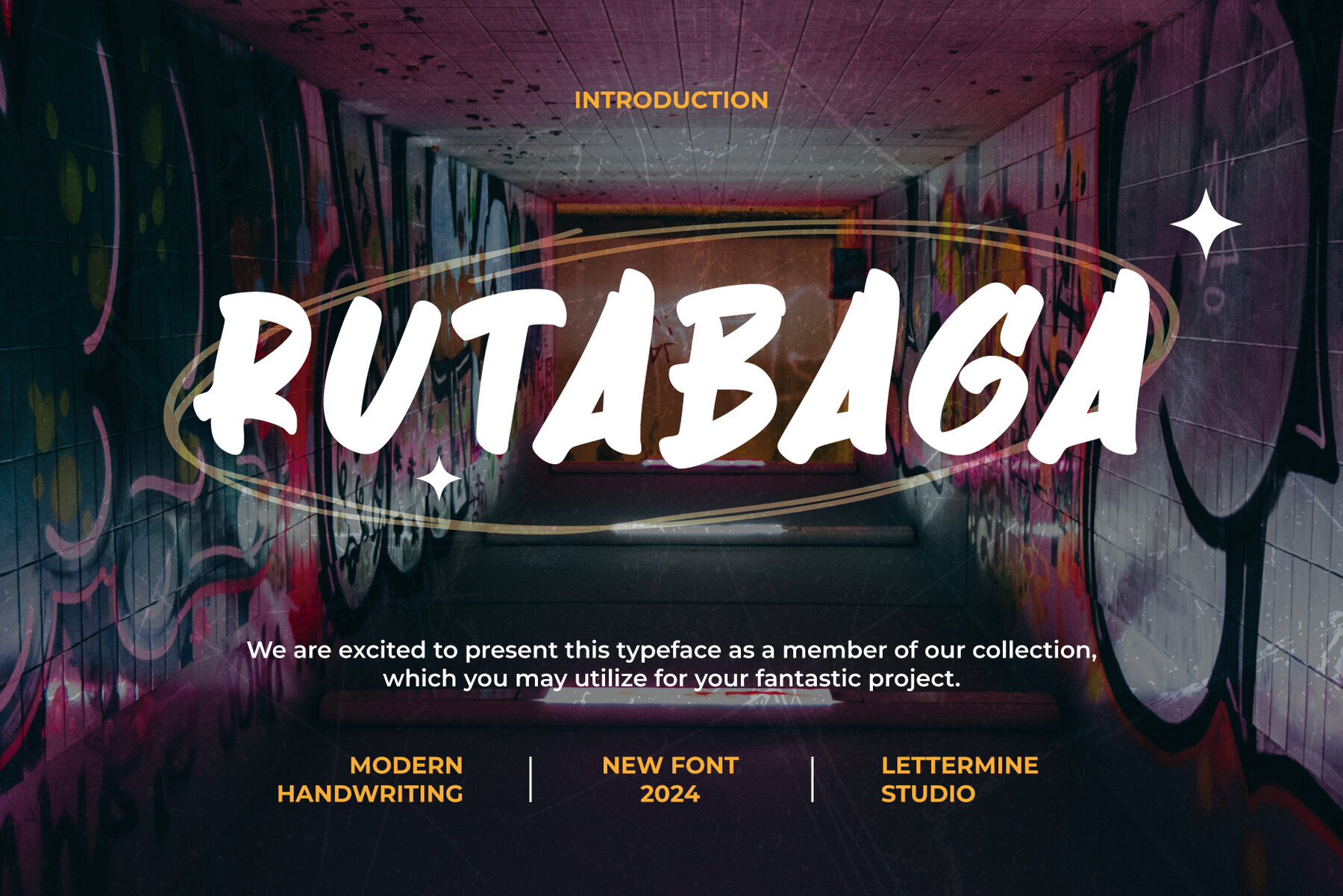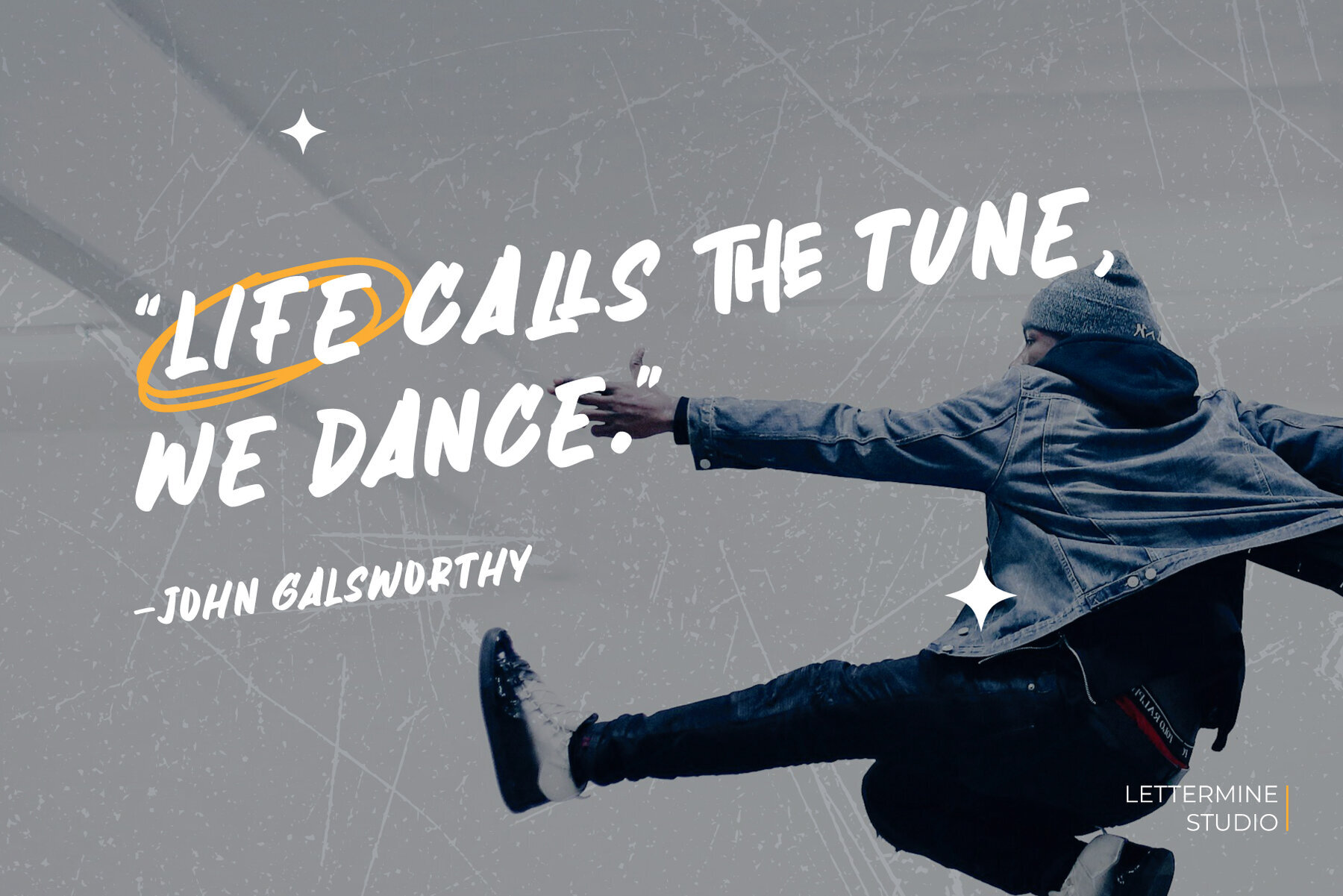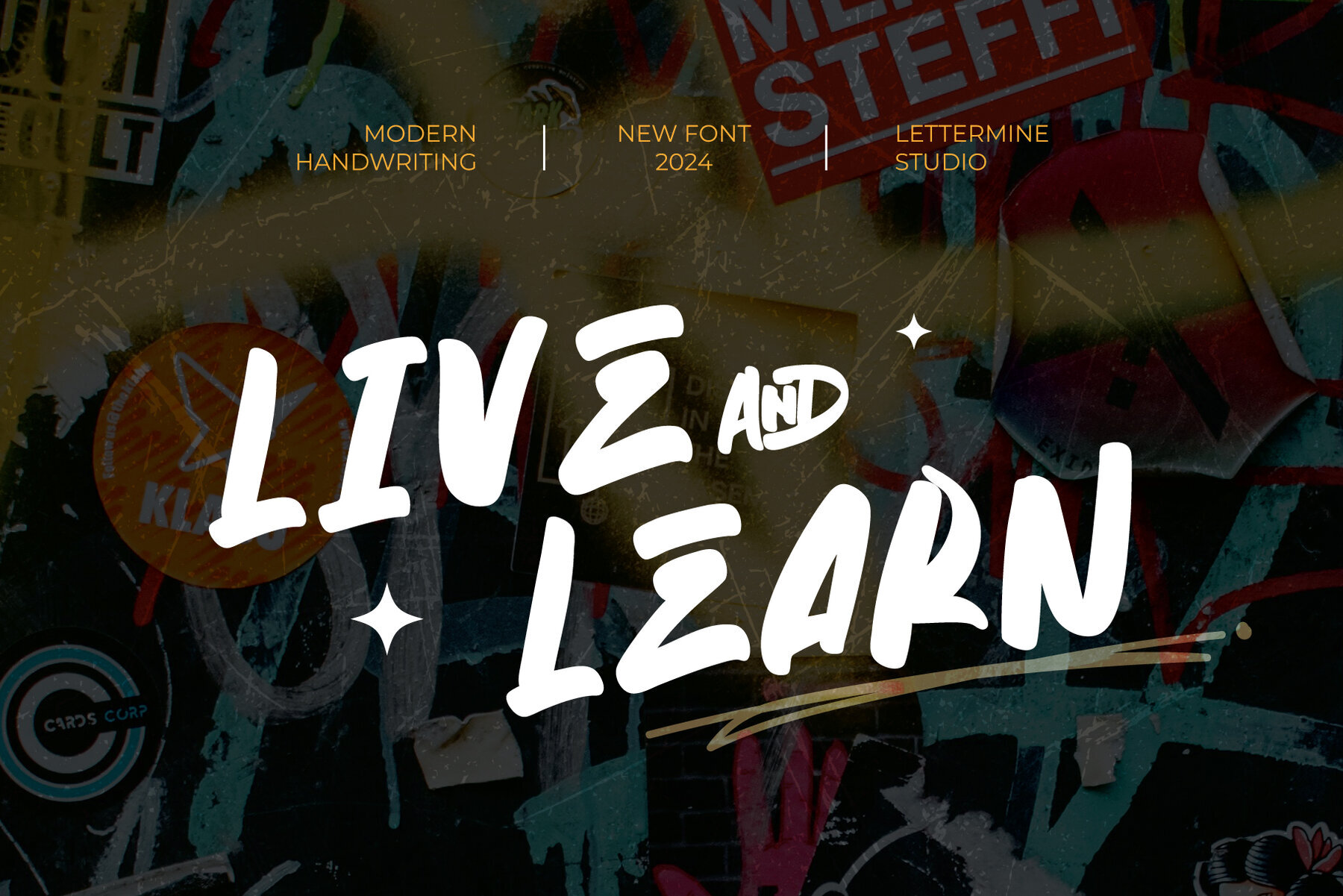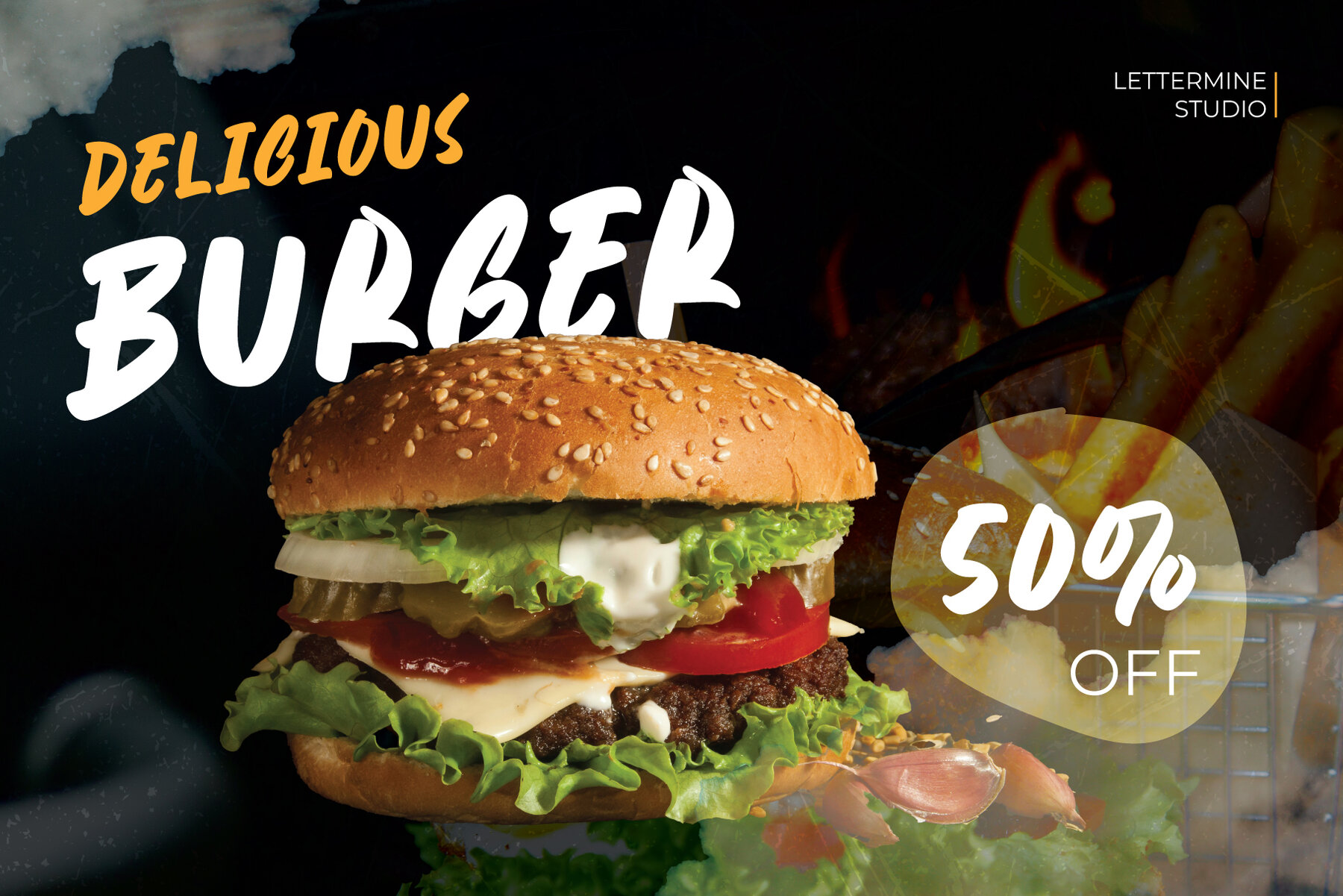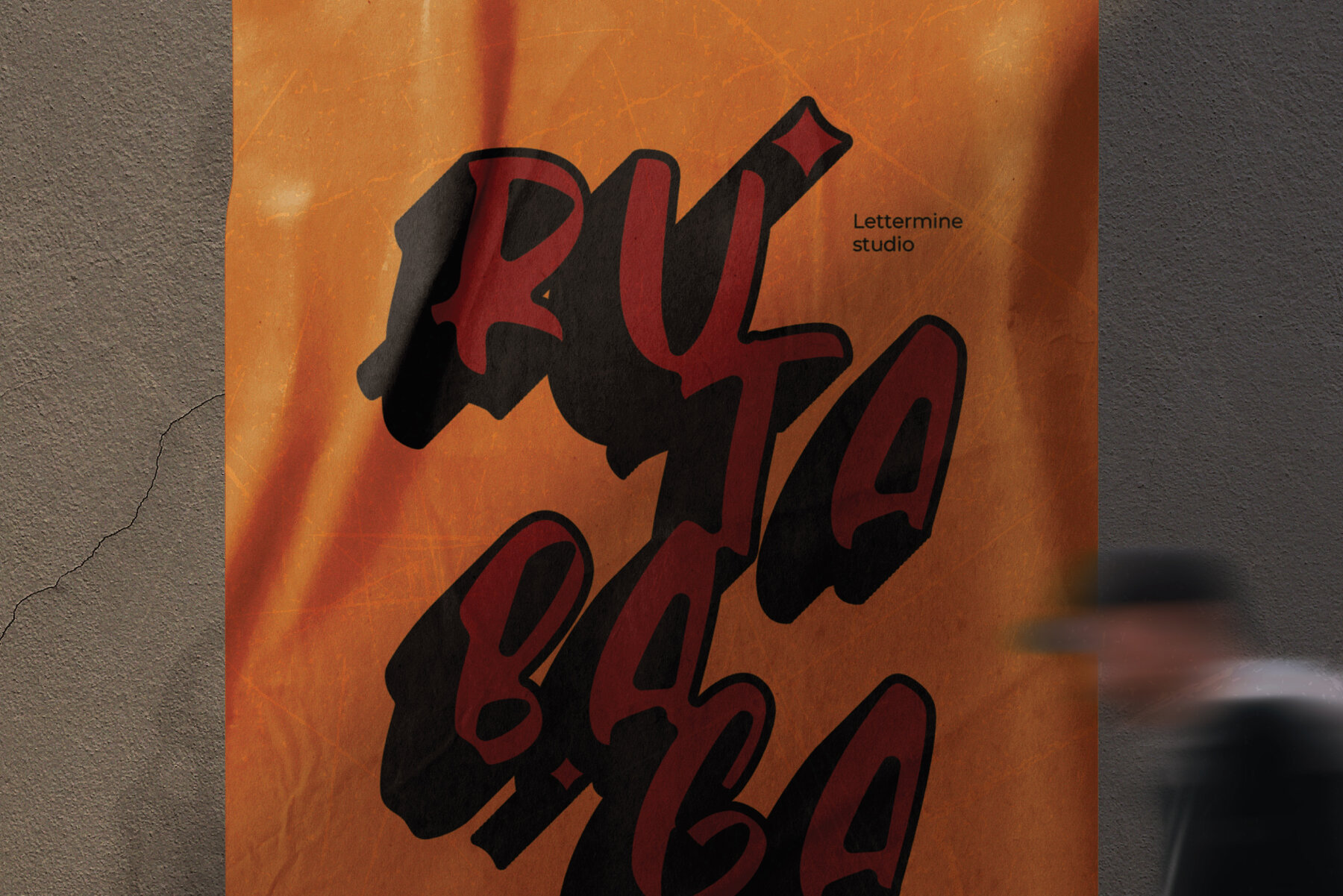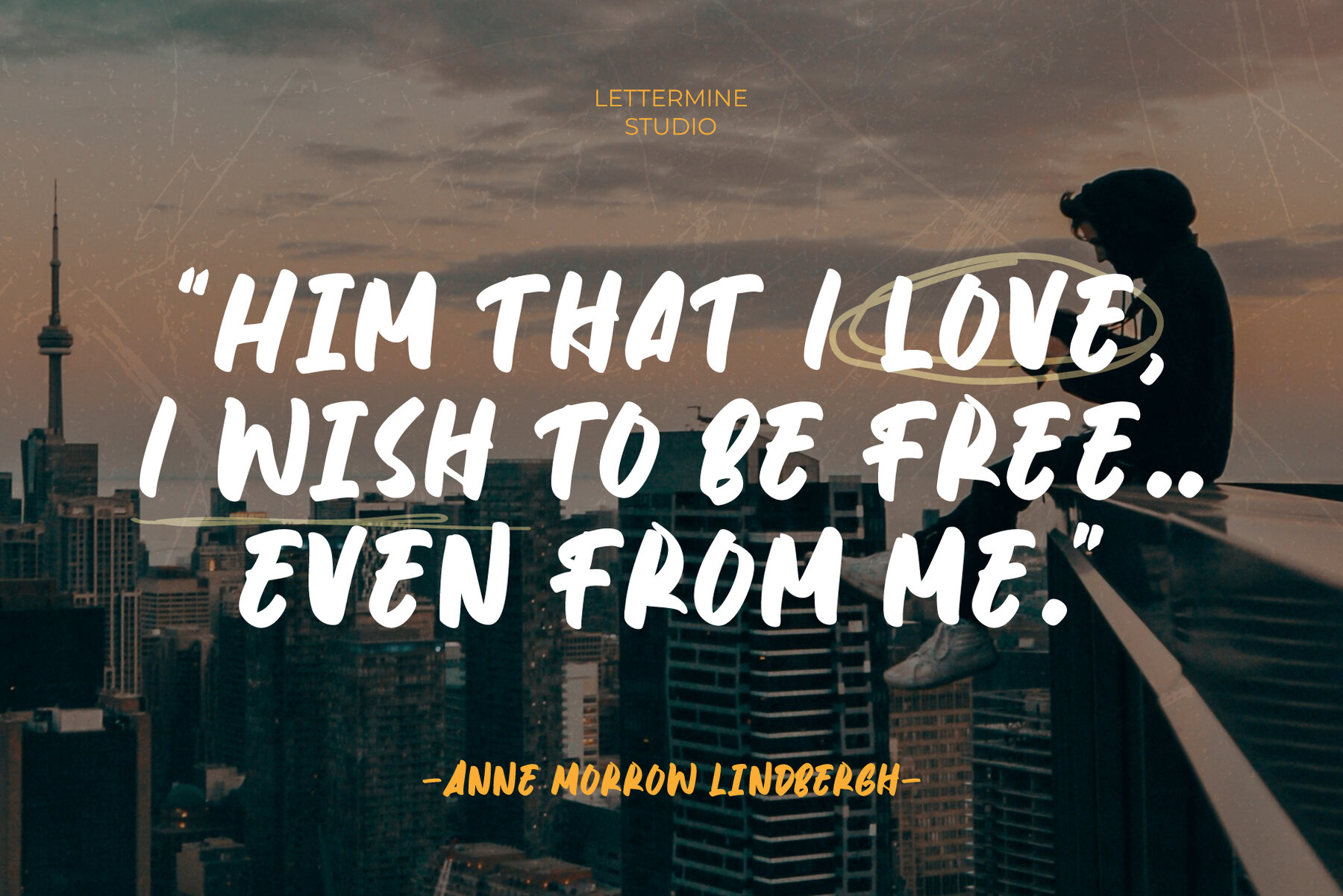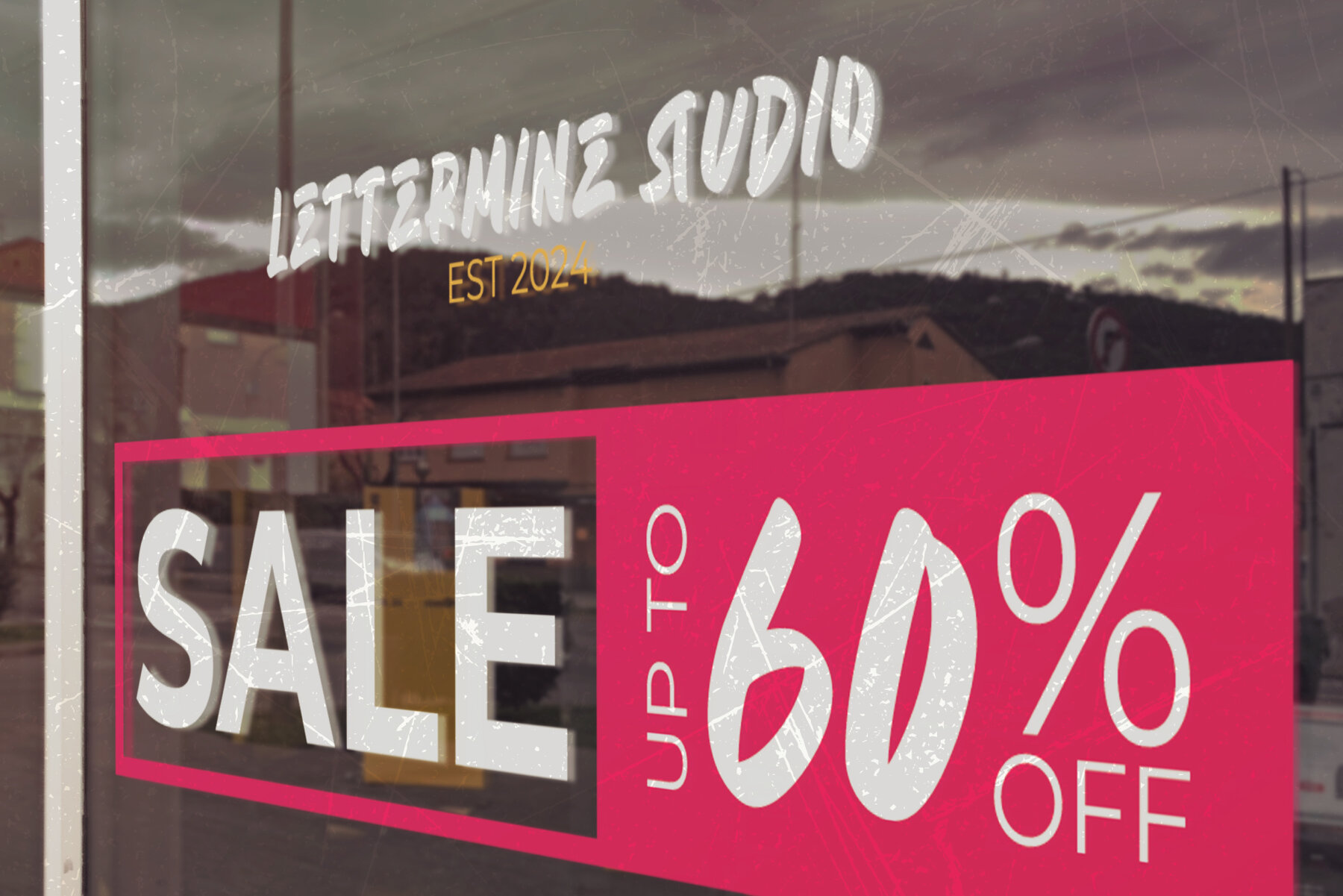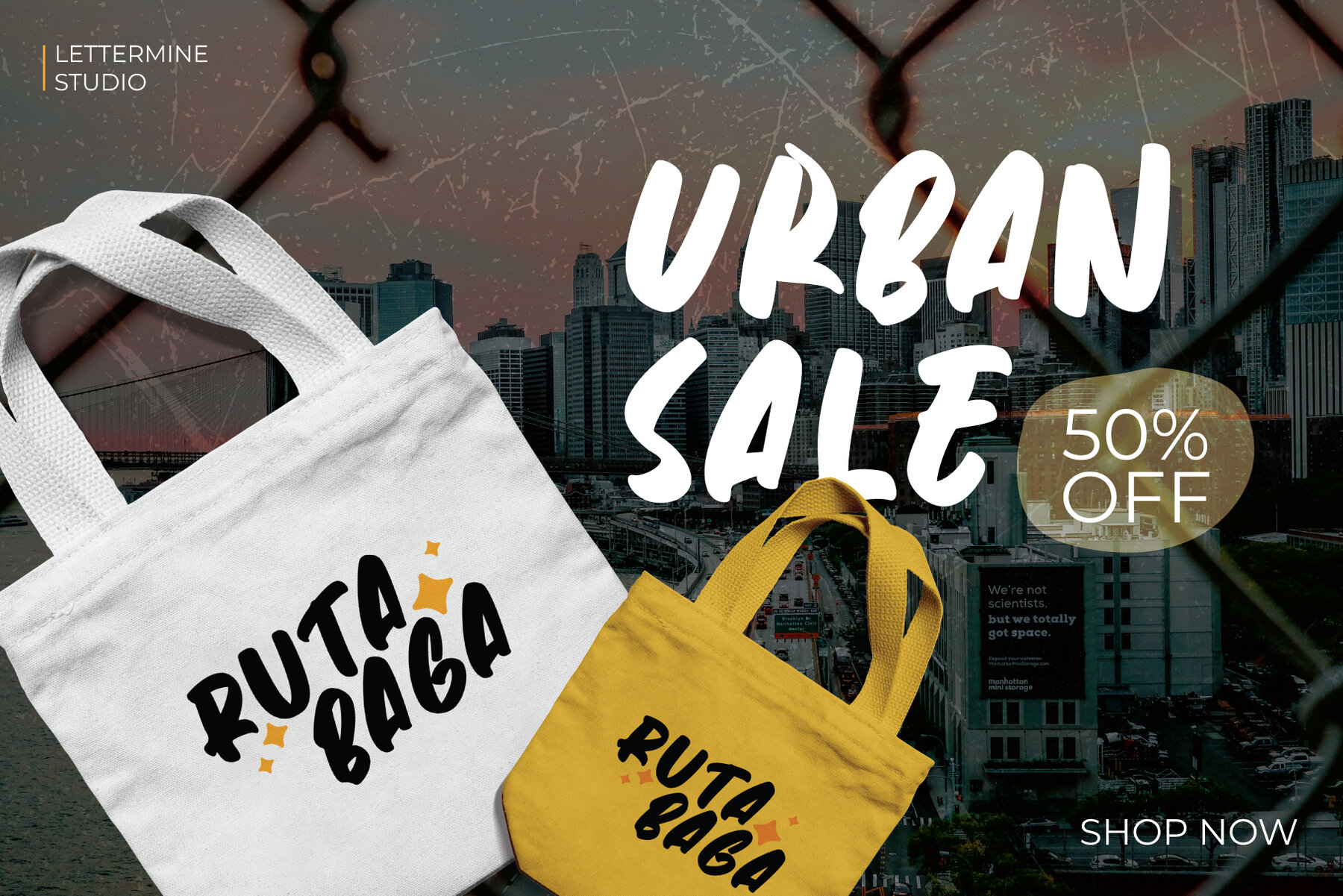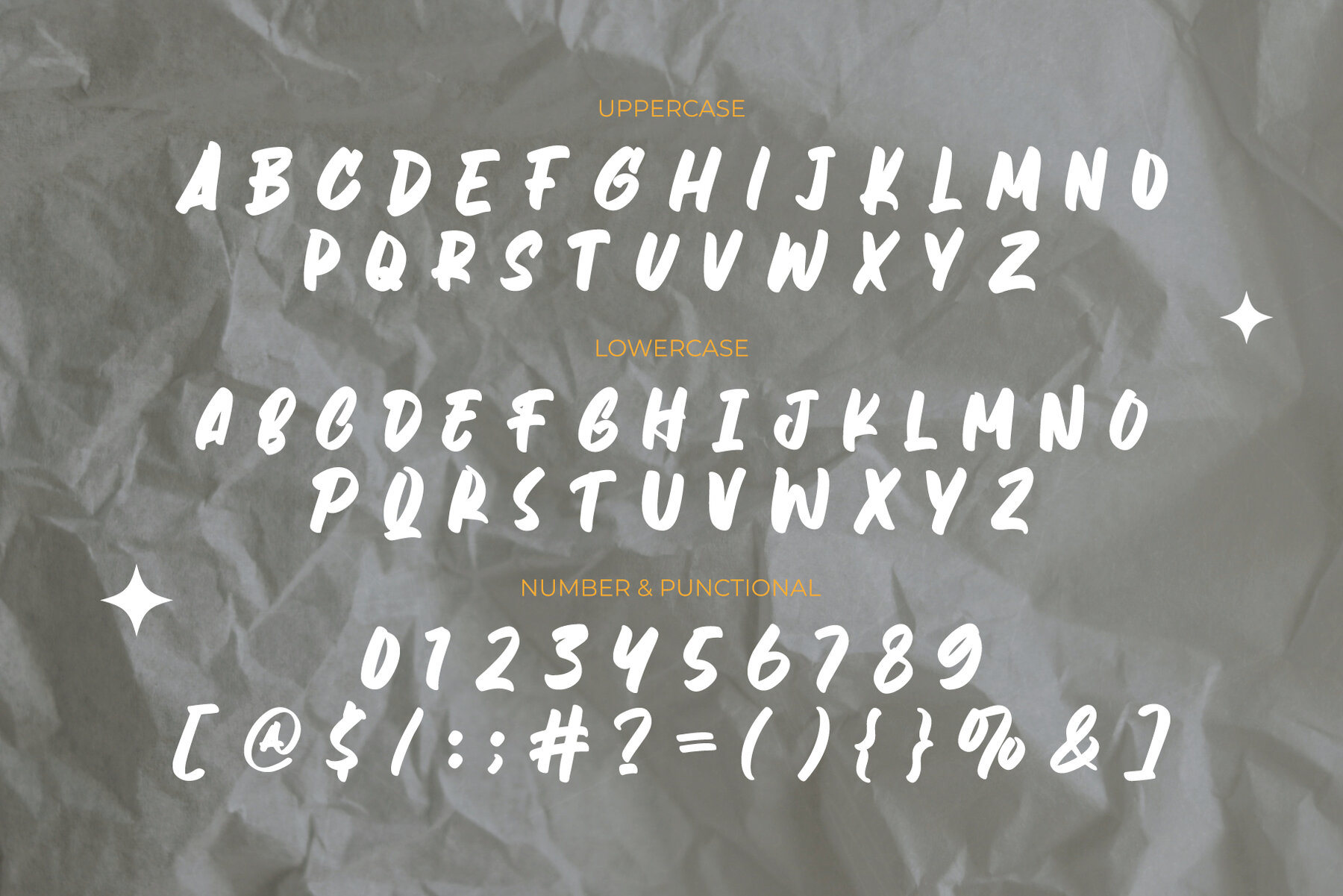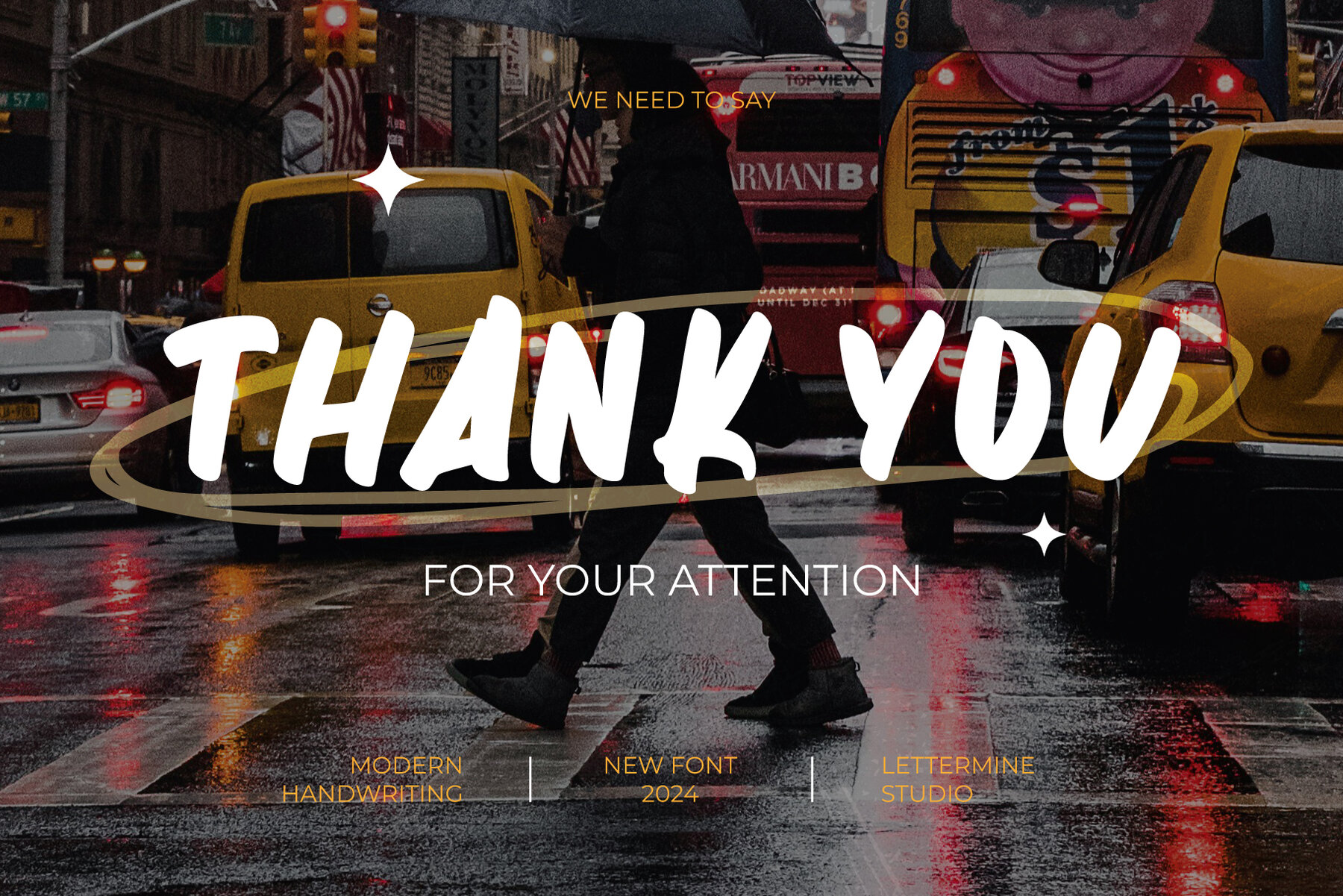
Rutabaga Font
Rutabaga Regular
This font is a bold, expressive display typeface with a handcrafted, brush-style quality. It exudes a spontaneous, edgy vibe, making it suitable for designs that aim to be contemporary, lively, and attention-grabbing. The irregular and organic forms of each letter give it a casual, youthful charm that works well for informal communication and urban-themed graphics.